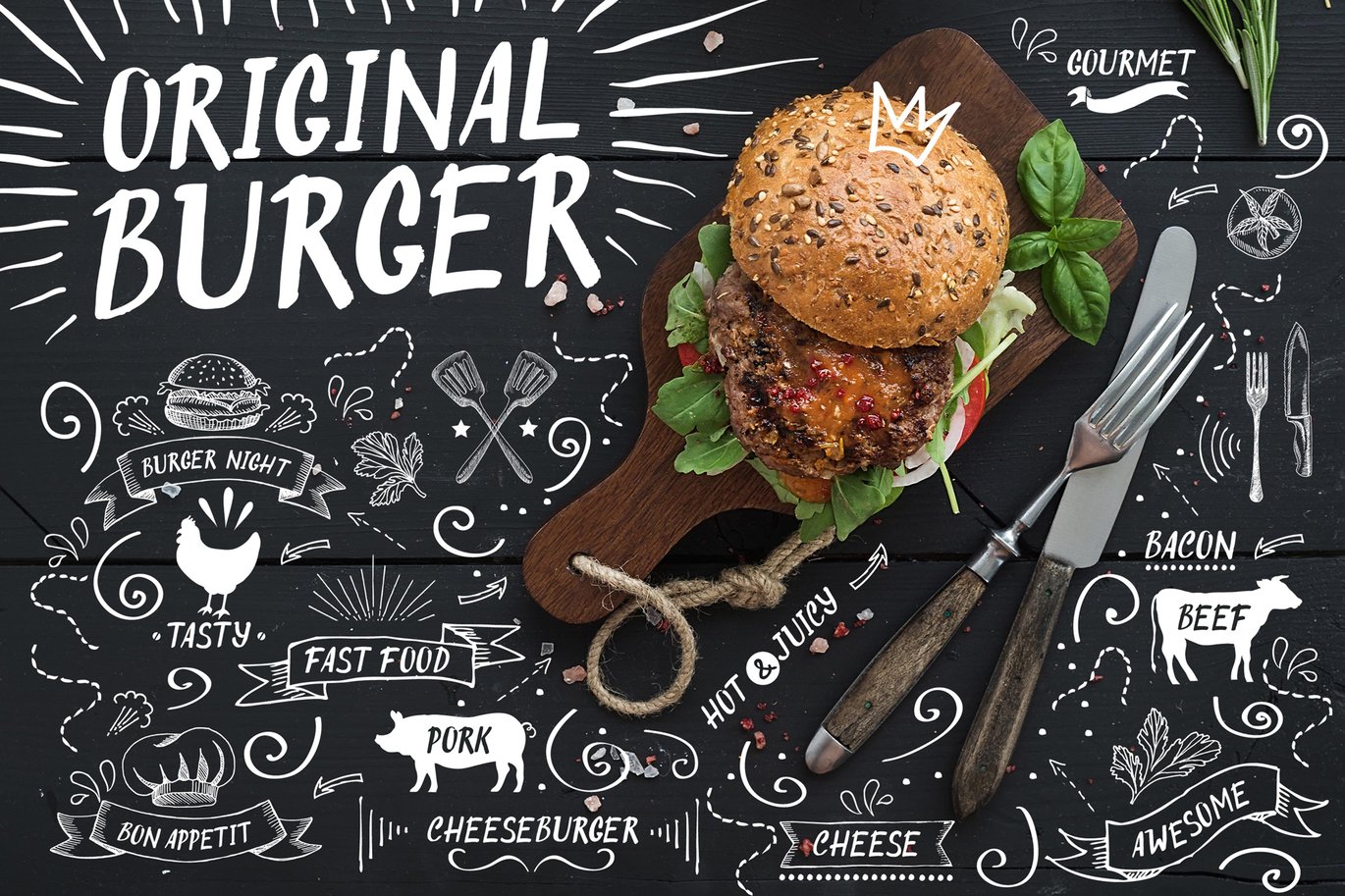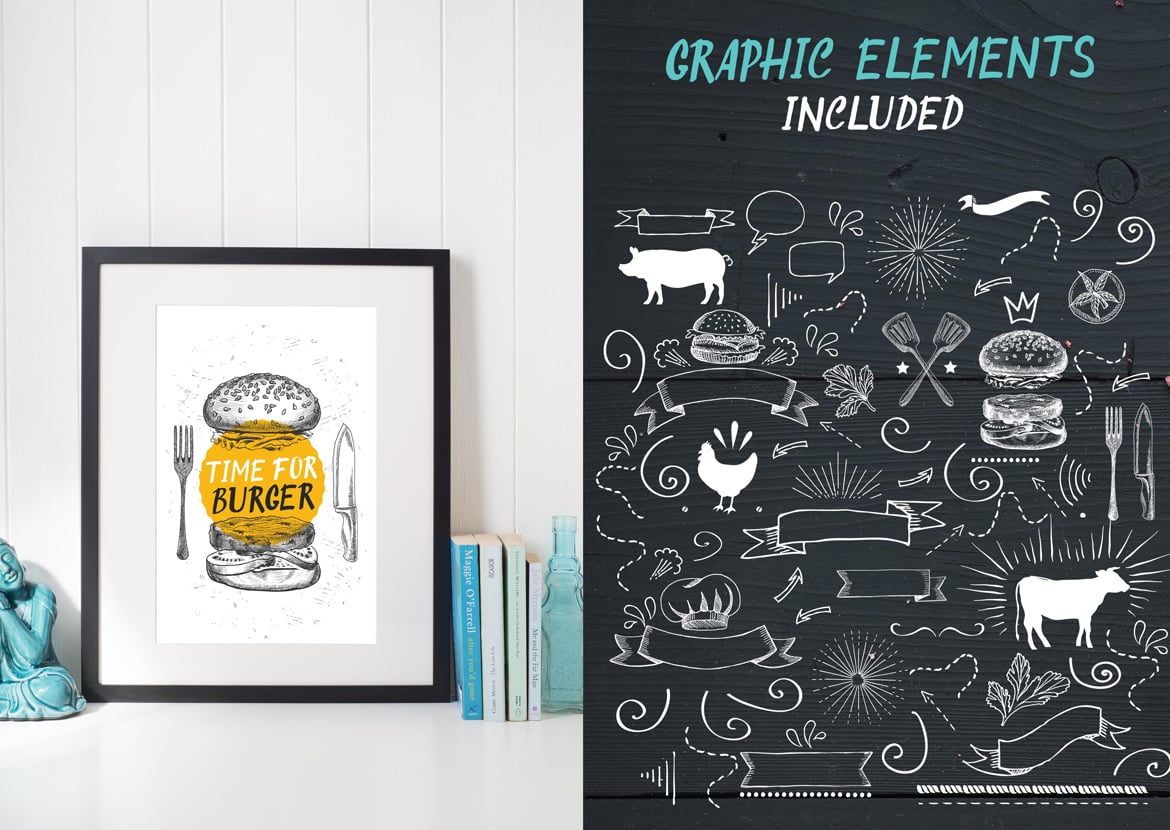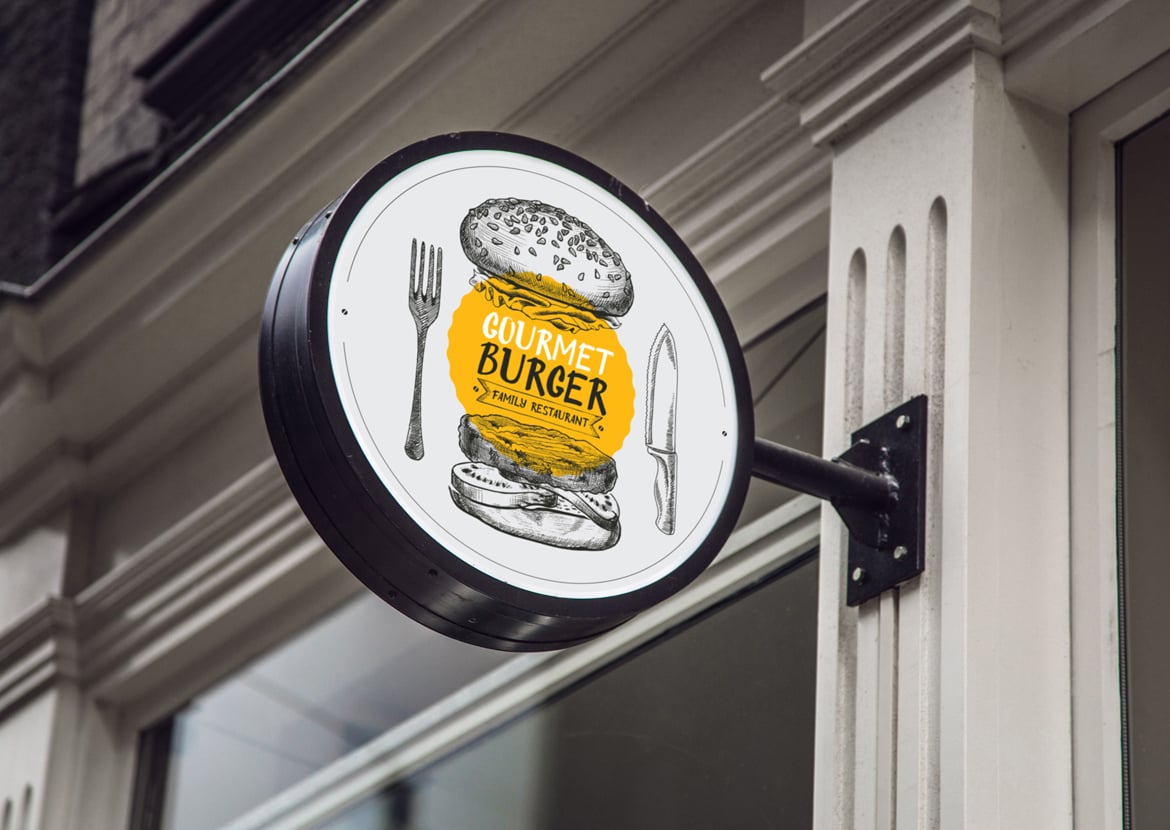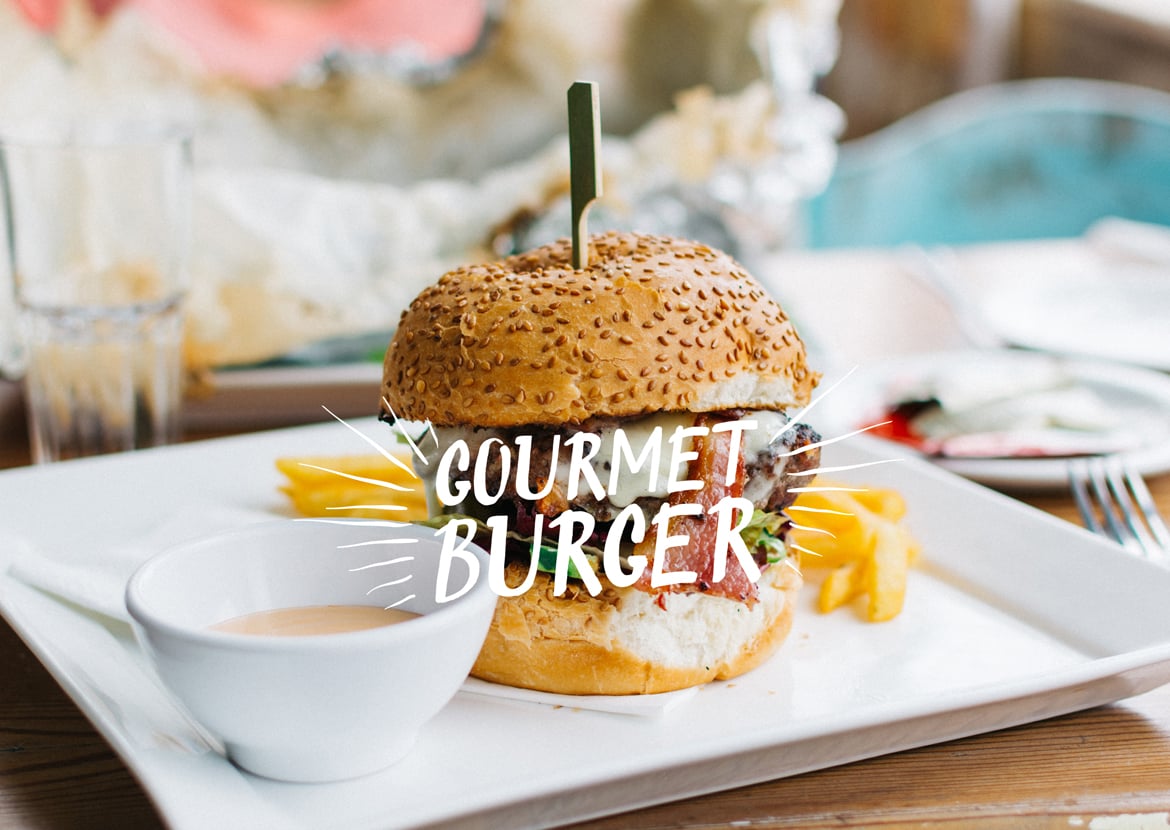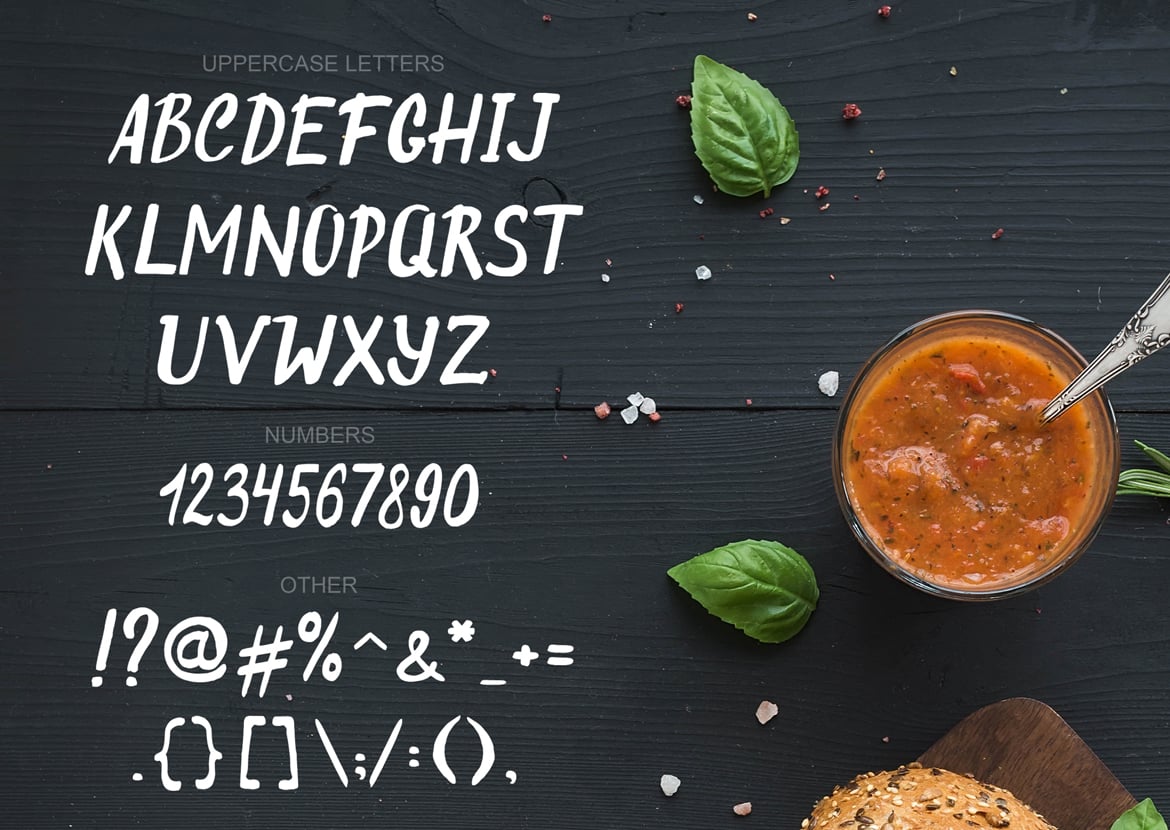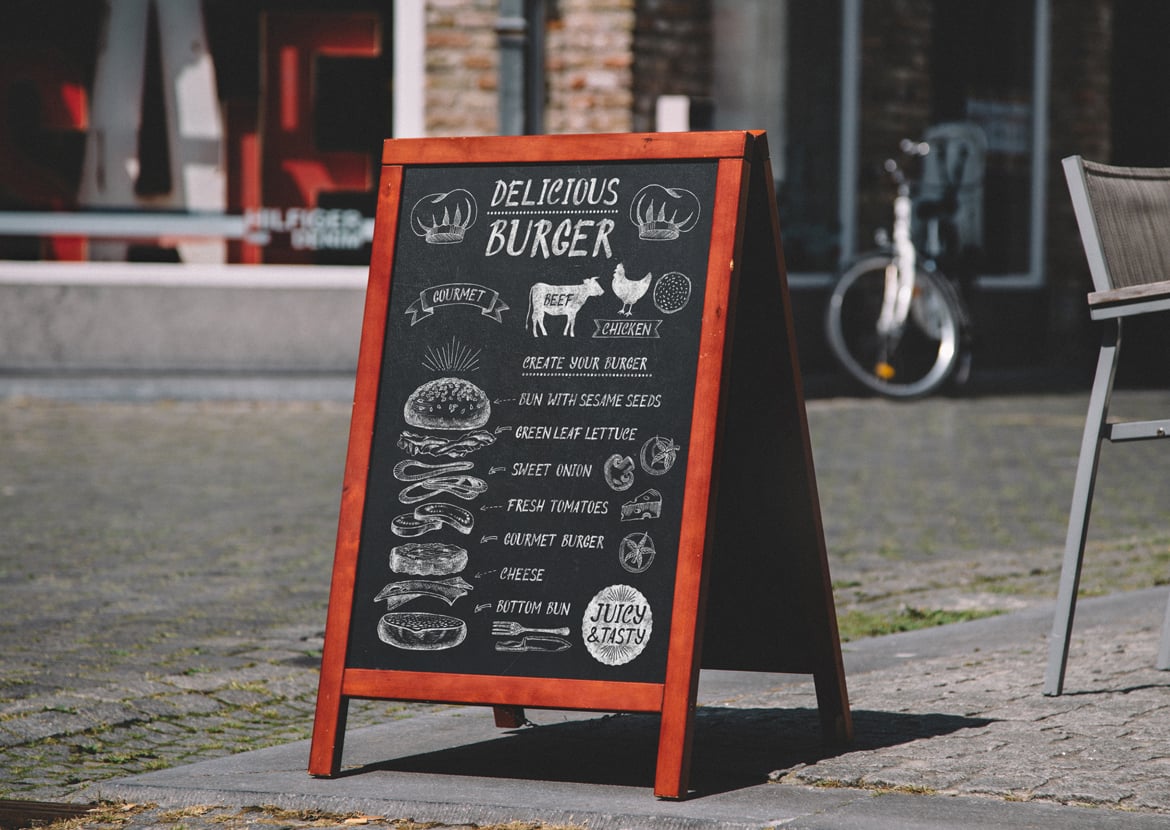
Original Burger Font
+Original Burger – a handmade font consisting of uppercase letters, punctuation and numbers. Basic Latin alphabet A-Z. Also this font comes with graphic doodle elements.